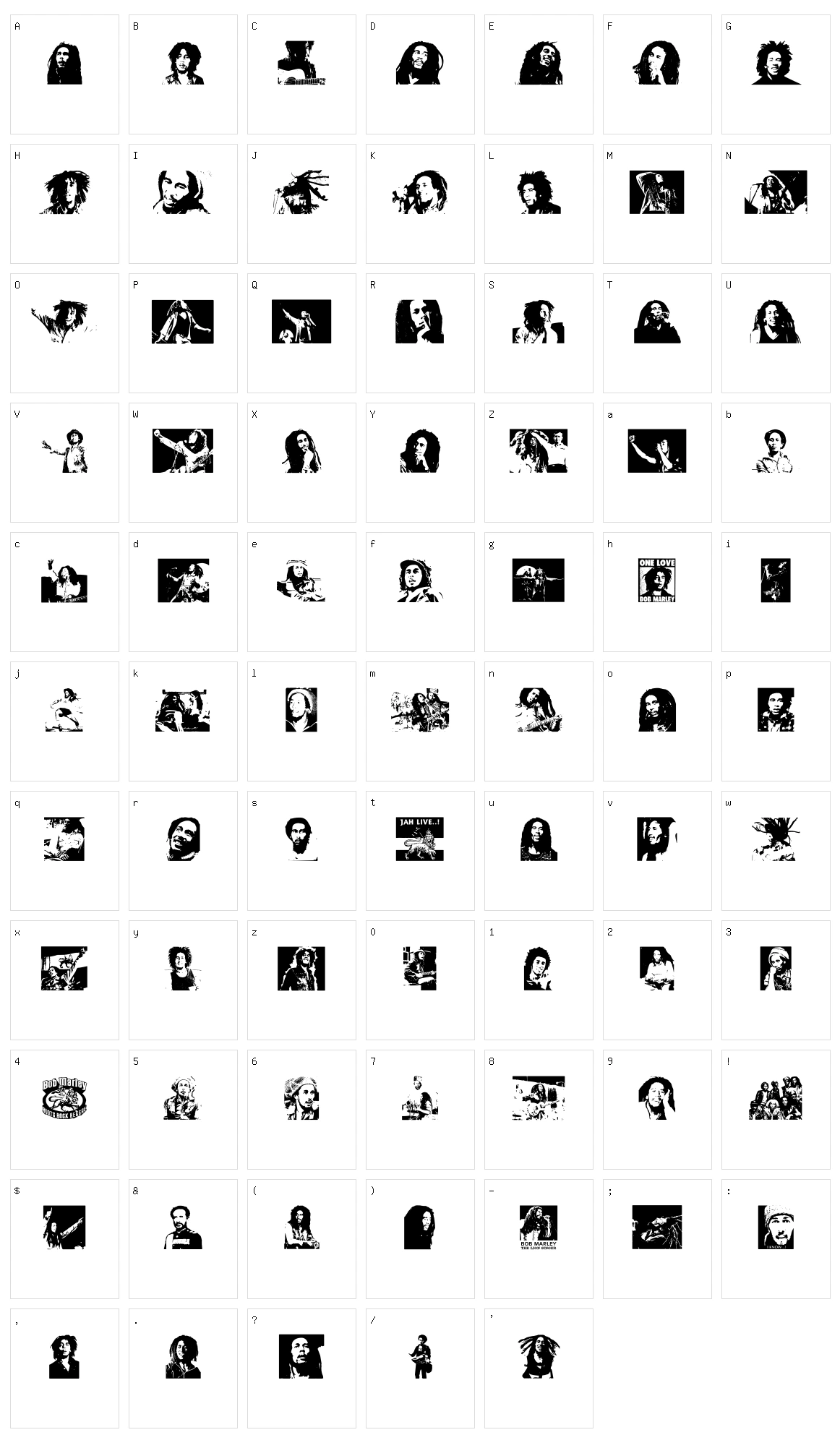
* * * BOB MARLEY; THE THIRD WORLD'S FIRST UNIVERSAL REGGAE SUPERSTAR * * *
He was a great man with deep religious and political sentiments who rose from
destitution to become one of the most influential music figures in the
last Thirty years.
He had an impeccable face, great cheekbones and was very photogenic,
Bob's face could look incredibly dramatic. [BOB MARLEY'S photographer Kate Simon]
Bob marley in my mind is the greatest musician, and all of his songs just caps a
wonderfull and amazing life he had.
This FONTS will help you get thro the bad times. "ev'rythings gonna be alright"
It seems to breath hope and a better day. Bob the greatest.
THE FONTS CONTAINED GREATEST BLINKS OF BOB'S BRIEF LIFE. INSTALL THIS TYPE FACES